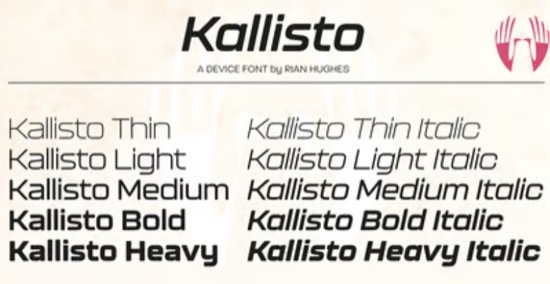
Kallisto Font Family was designed by Rian Hughes and published by Device. Kallisto contains 11 styles and family package options. A robust rectangular sans with round corners and subtle rounded stroke terminals, Kallisto weds a rational, machine-made aesthetic with a certain warmth that derives from more familiar letter shapes found on diestamped or embossed boilerplate signs.
Kallisto Sans Serif Font
Name: Kallisto
Designed: Rian Hughes, Published: Device